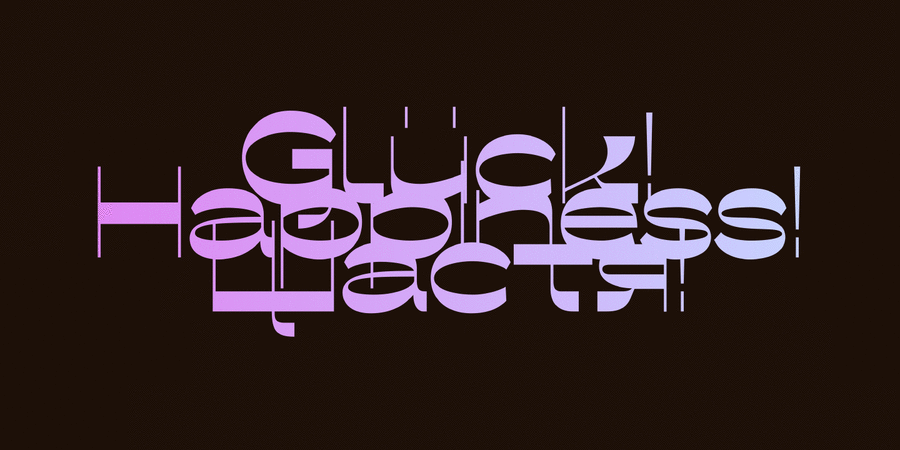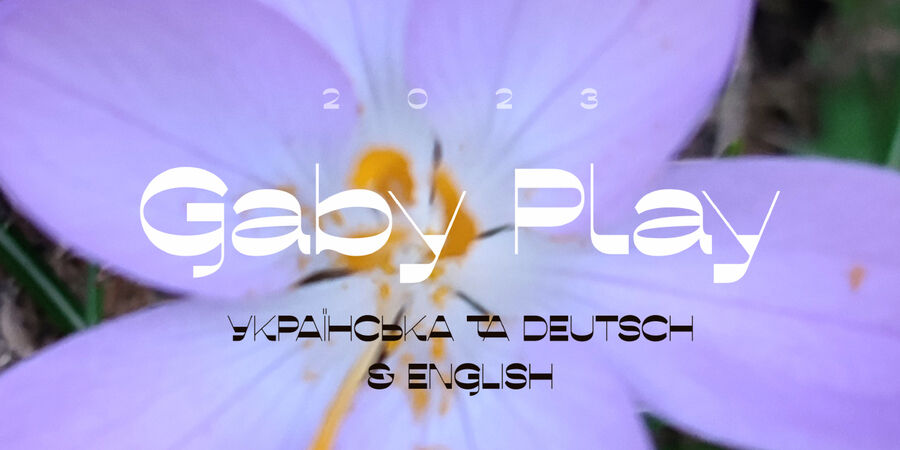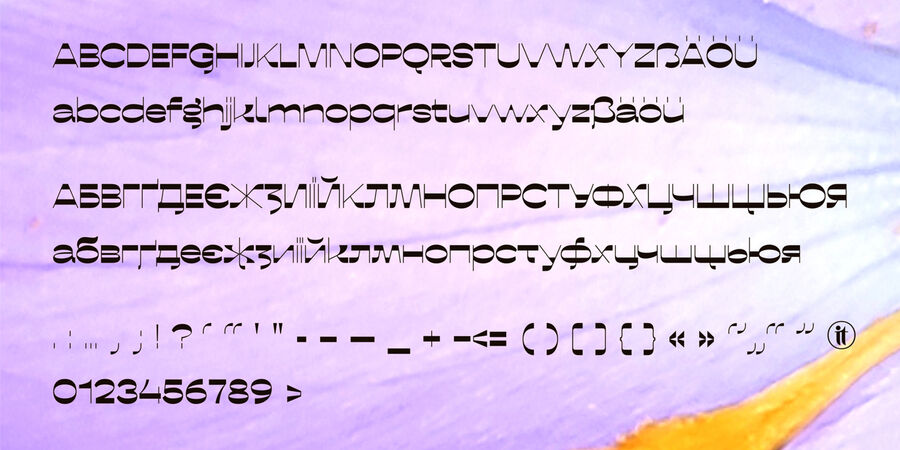
About IT Gaby PlayDesigned on the basis of Gaby Black typeface. Reverse high contrast, wide proportions, friendly character and free license OFL make it possible to carry out author's experiments in typography in Ukrainian, English and German languages. Application: identity, advertising, publishing, individual projects, etc. The typeface was designed by Tetiana Ivanenko in 2023.
Associations for font family IT Gaby PlayTypeface personality and character:
modern, children, naive, cute, artistic, spring, festive, fresh, musical, rhythmic, informal, playful, cheerful, emotional, glad, interesting, original, freewheeling, provocative, vigorous, distinctive, affable, alive, cool, friendly, good-natured, fanciful, funny, extraordinary, major, infantile, frivolous, fabulous, cunning, dynamic, strange, smiling, happy, creative, nice, exotic, urban, youth, fashionable, party, witty, ironic, notable, splashy, bright, expressive, theatrical, demonstrative, experimental, esthetic, pretentious, extravagant, nonconformist, Bohemian, mannered, mutable, deceptive, shocking, resolute, agile, clubbing, psychedelic, acid, tough, daring, risky, street, impudent, dangerous, sharp, cutting, radical, cocky, night, alien, flexible, spacious, wide, contradictory, picturesque, temperamental, motivating, active, ambitious, beautiful, fantastic, summer, positive, cartoonish, mischievous, home, generous, voiced, benevolent
entertainment, decoration, city, accessories, souvenir, flowerbed, game, recreation, camp, Spring, celebration, gifts, magic, candies, music, summer, stationery, children's book, adventures, animation, Cartoon, birthday, clothes, holiday, humor, design, partying, party, cocktail, bar, cinema, attraction, TV, show, alcohol, tourism, circus, fair, advertising, theater, footwear, illusionist, restaurant, comedy, cafe, Instagram, disco, aquadiskotheque, graphics, illustration, sci-fi, Extreme, night club, dance, graffiti, concert, knife, architecture, hookah, sculpture, tattoo, club, furniture, interior, coloring, toy, pizza, clown, coffee, juice, selfie, paints, paint, house Typeface associated with age: